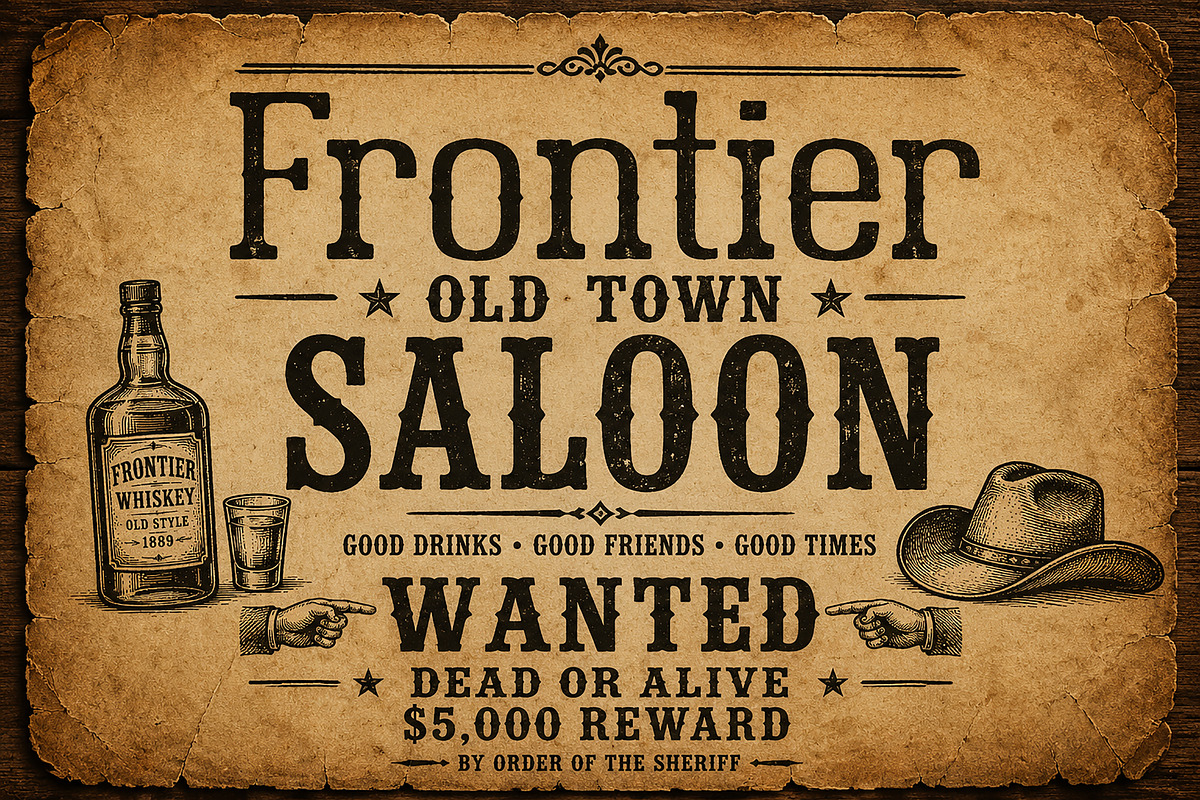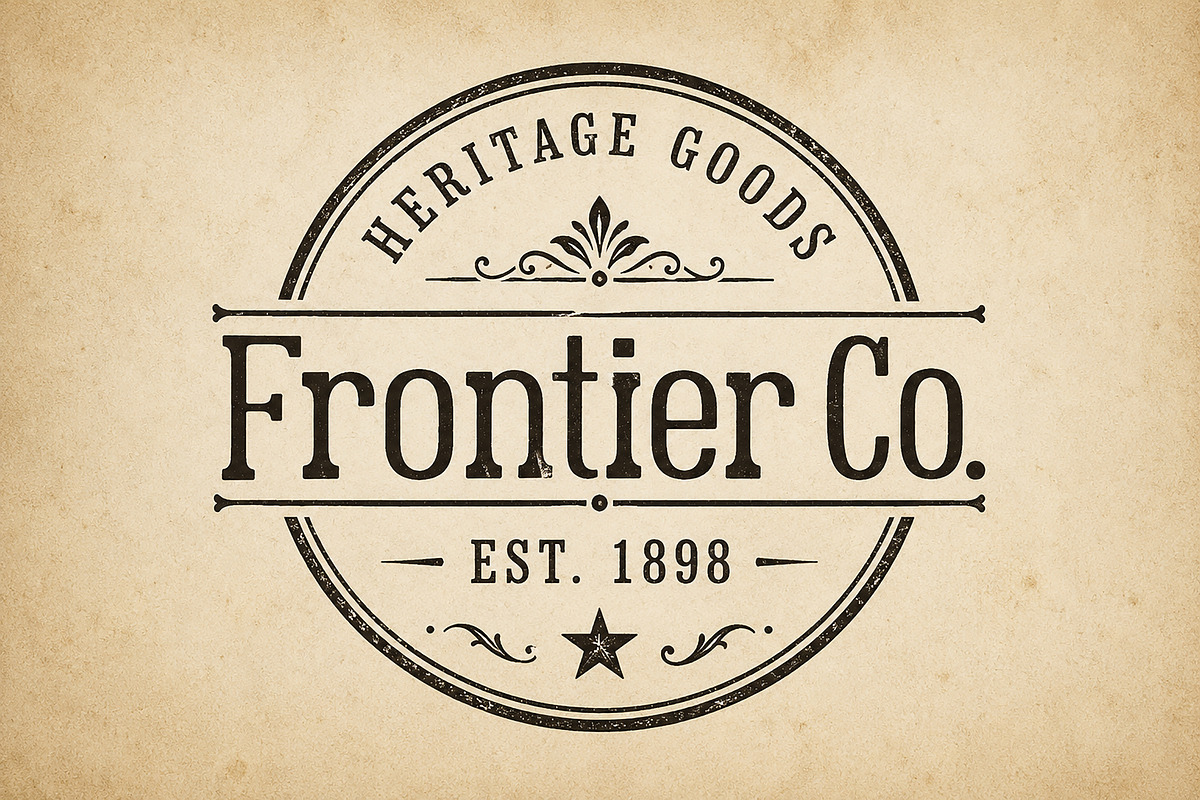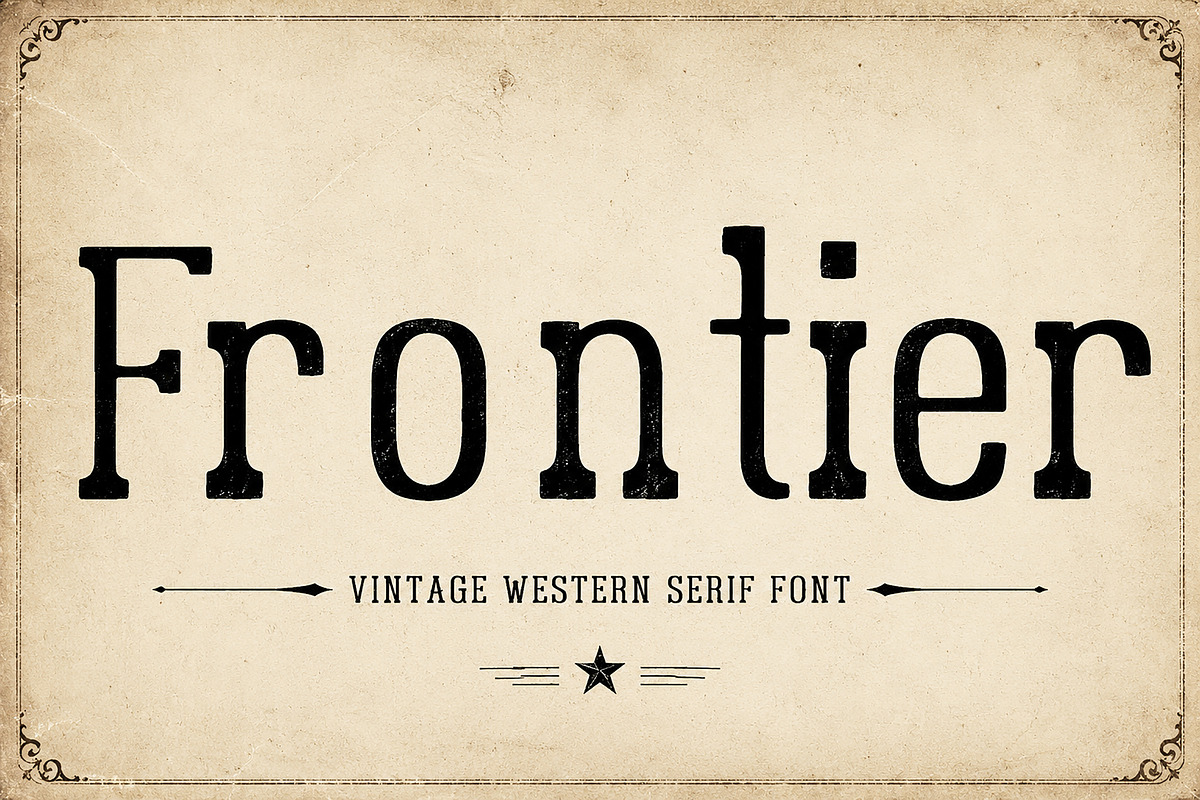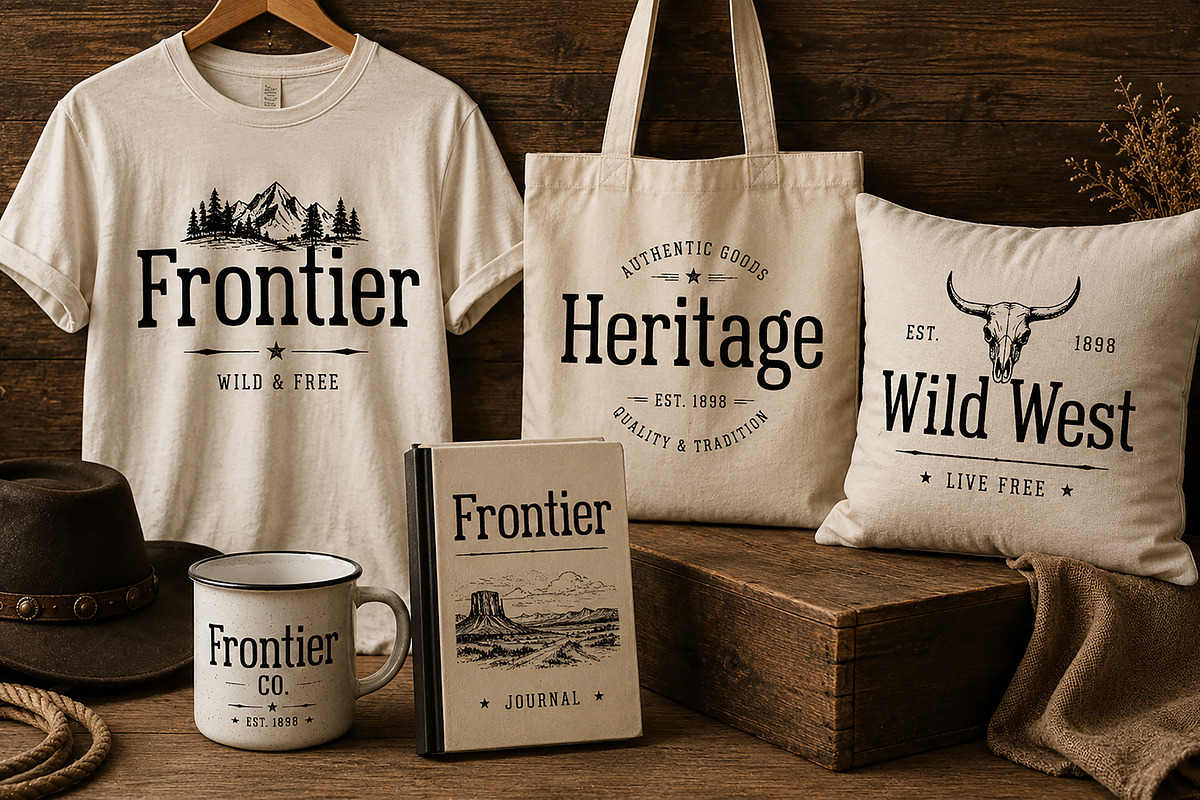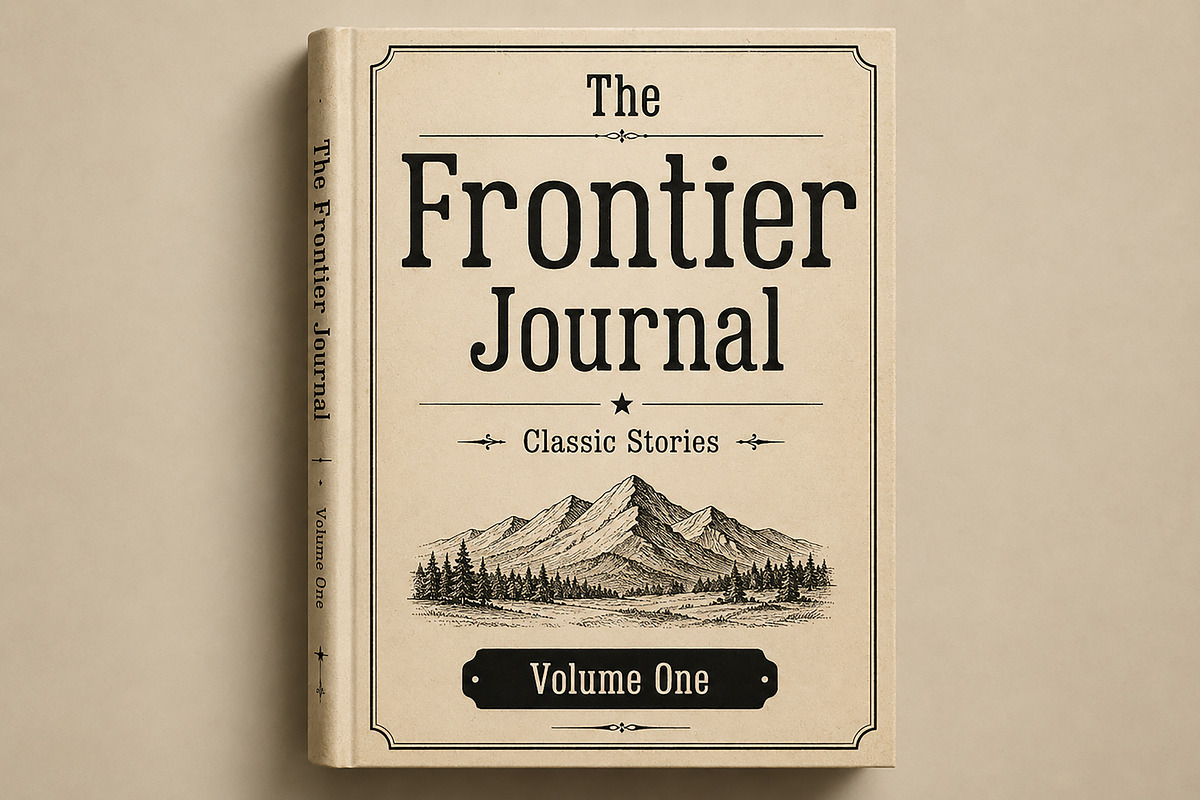
Frontier
Frontier – Vintage Western Serif Font
Frontier is a bold and timeless vintage serif font inspired by the spirit of the Old West, frontier towns, heritage brands, and classic Americana typography. Featuring strong serifs, balanced proportions, and authentic vintage character, Frontier delivers a rugged yet refined look that stands out in both modern and retro designs.
Perfect for logos, branding, packaging, book covers, posters, apparel, labels, signage, editorial layouts, and western-themed projects, Frontier brings a distinctive handcrafted feel while maintaining excellent readability.
Whether you're creating a rustic whiskey label, a heritage logo, a western poster, or a premium vintage brand identity, Frontier provides the authentic character needed to make your designs memorable.
Clean & Professional Design
Vintage Western Style
Bring the authentic charm of the American frontier to your next creative project with Frontier.